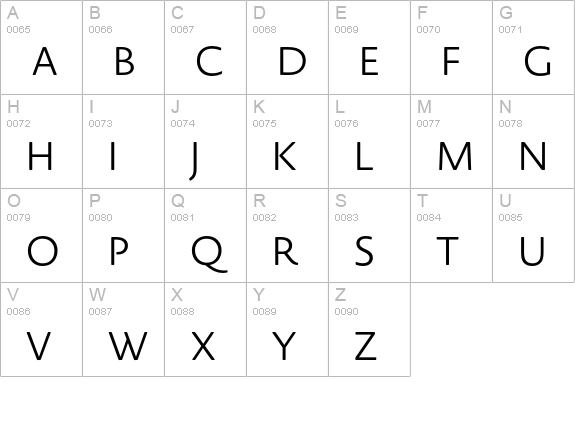
Novel Sans Rd Pro Light Font Details
Novel Sans Rd Pro Light is a refined, elegant variant in the Novel typeface family \xE2\x80\x94 well suited to elegant body text, refined sub-headings, and luxury branding.
Novel Sans Rd Pro Light font is a modern and elegant typeface that exudes sophistication and clarity. With its clean lines and sleek design, this font is perfect for conveying a sense of professionalism and simplicity in your projects. The light weight of the font adds a touch of delicacy and refinement to your text, making it ideal for a wide range of applications, from branding to editorial design. What sets Novel Sans Rd Pro Light font apart is that it is not only stylish and versatile, but also free to download. You can easily access this beautiful font at FontsMarket.com without any cost, allowing you to enhance your designs without breaking the bank. Whether you're working on a website, a poster, a brochure, or any other creative project, Novel Sans Rd Pro Light font is sure to make a lasting impression with its timeless appeal and effortless charm. Elevate your typography game with this exquisite typeface today!